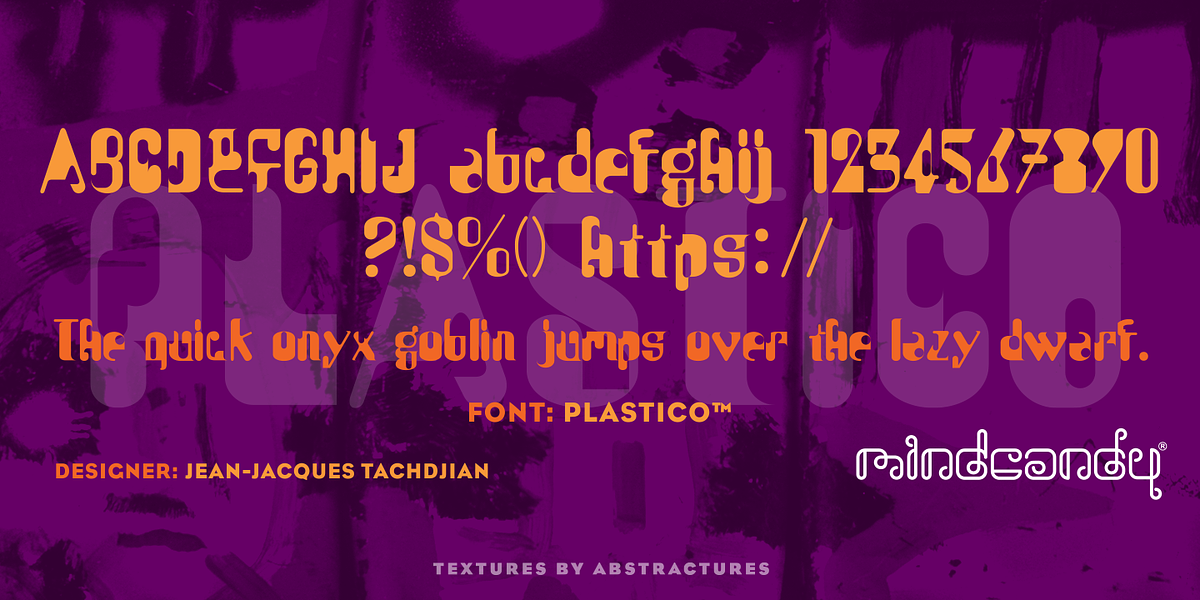
Plastico™
This display font is designed by Jean-Jacques Tachdjian and falls under the novelty category. It's characterized as a unique and playful font, suitable for eye-catching headlines, branding elements, and posters.